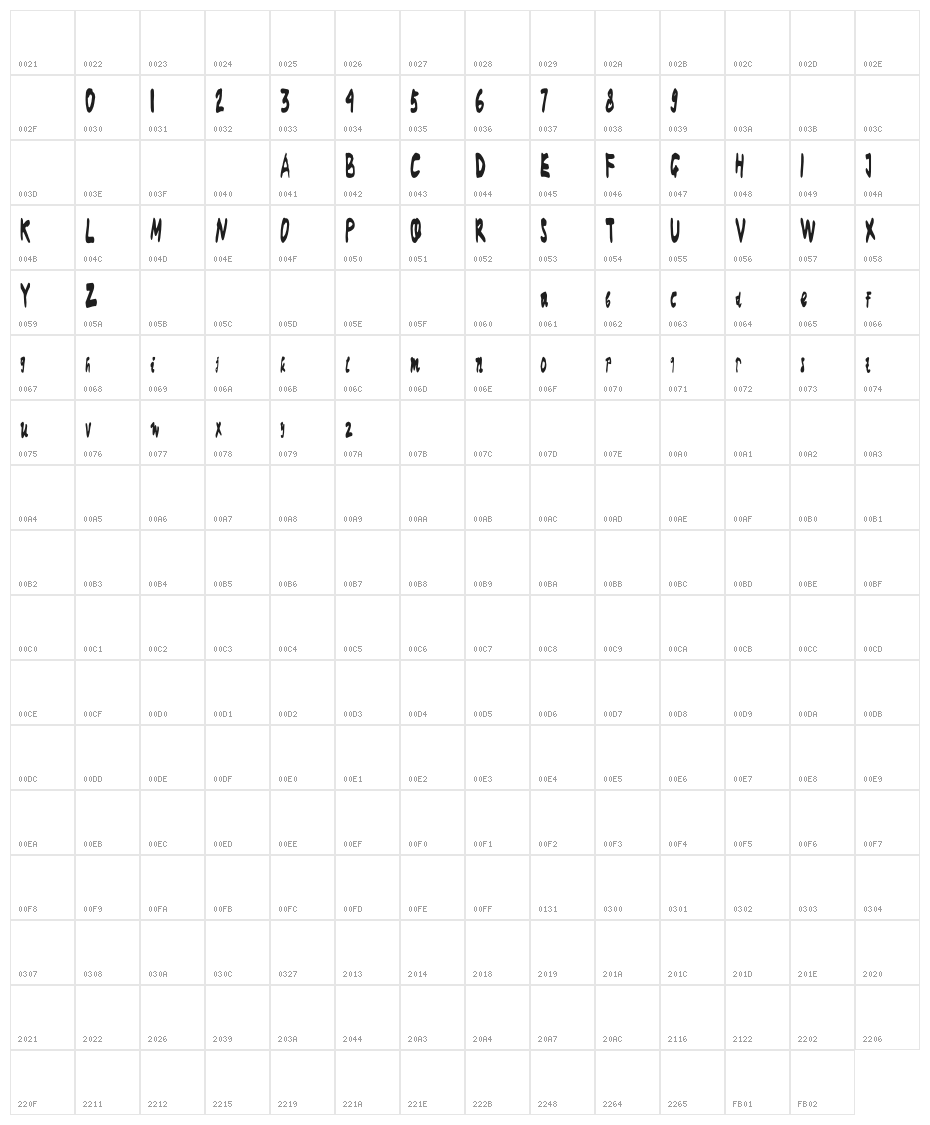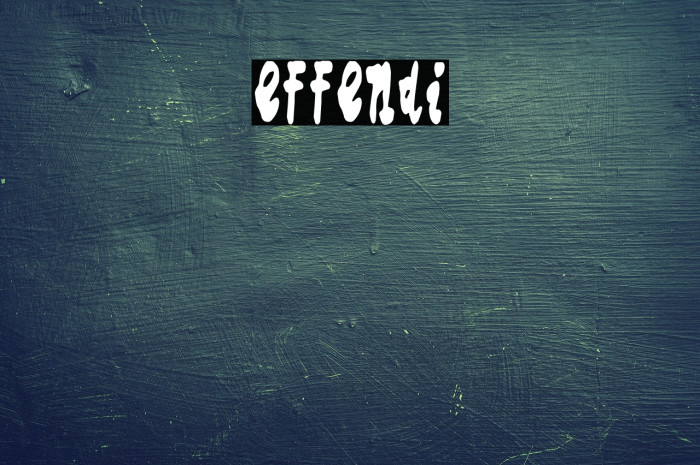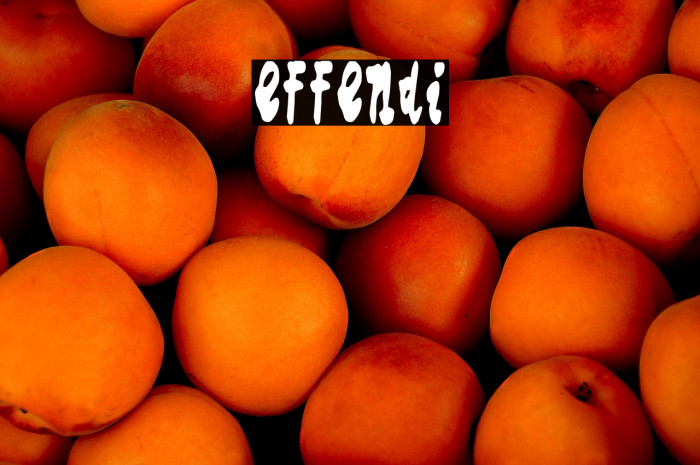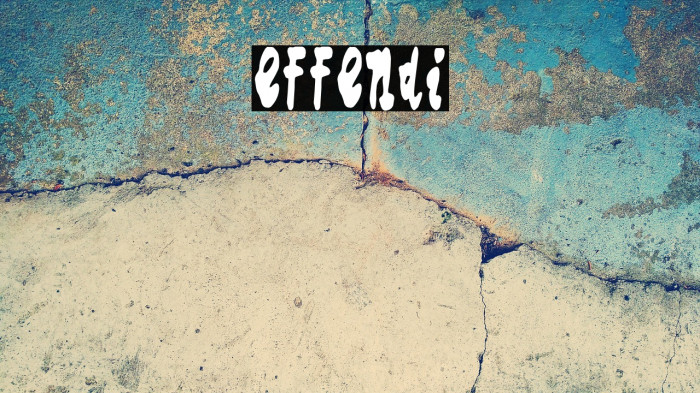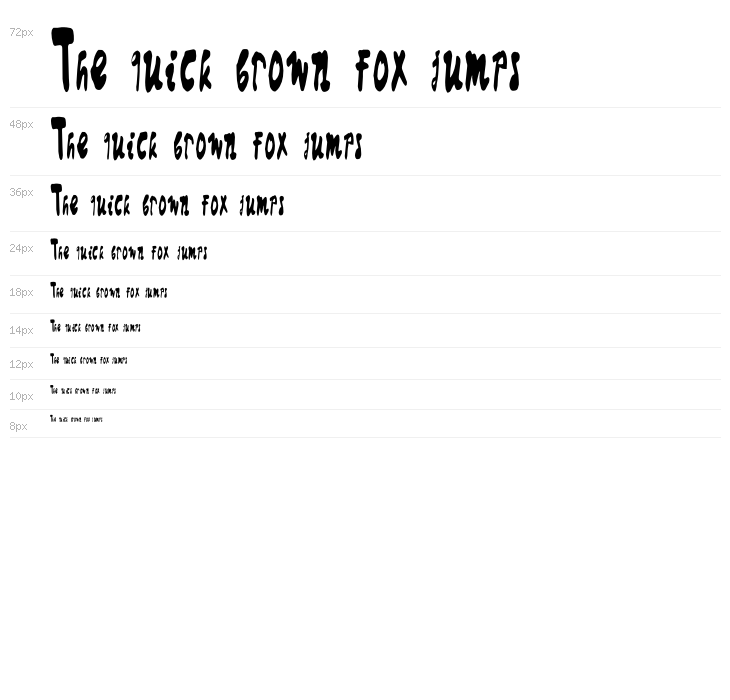
effendi Font
| Anwendungsfall | Logos, Posters, Creative projects |
| Vorgeschlagene Projekte | Ideal for artistic projects, posters, branding, and any design that requires a bold, handcrafted look. |